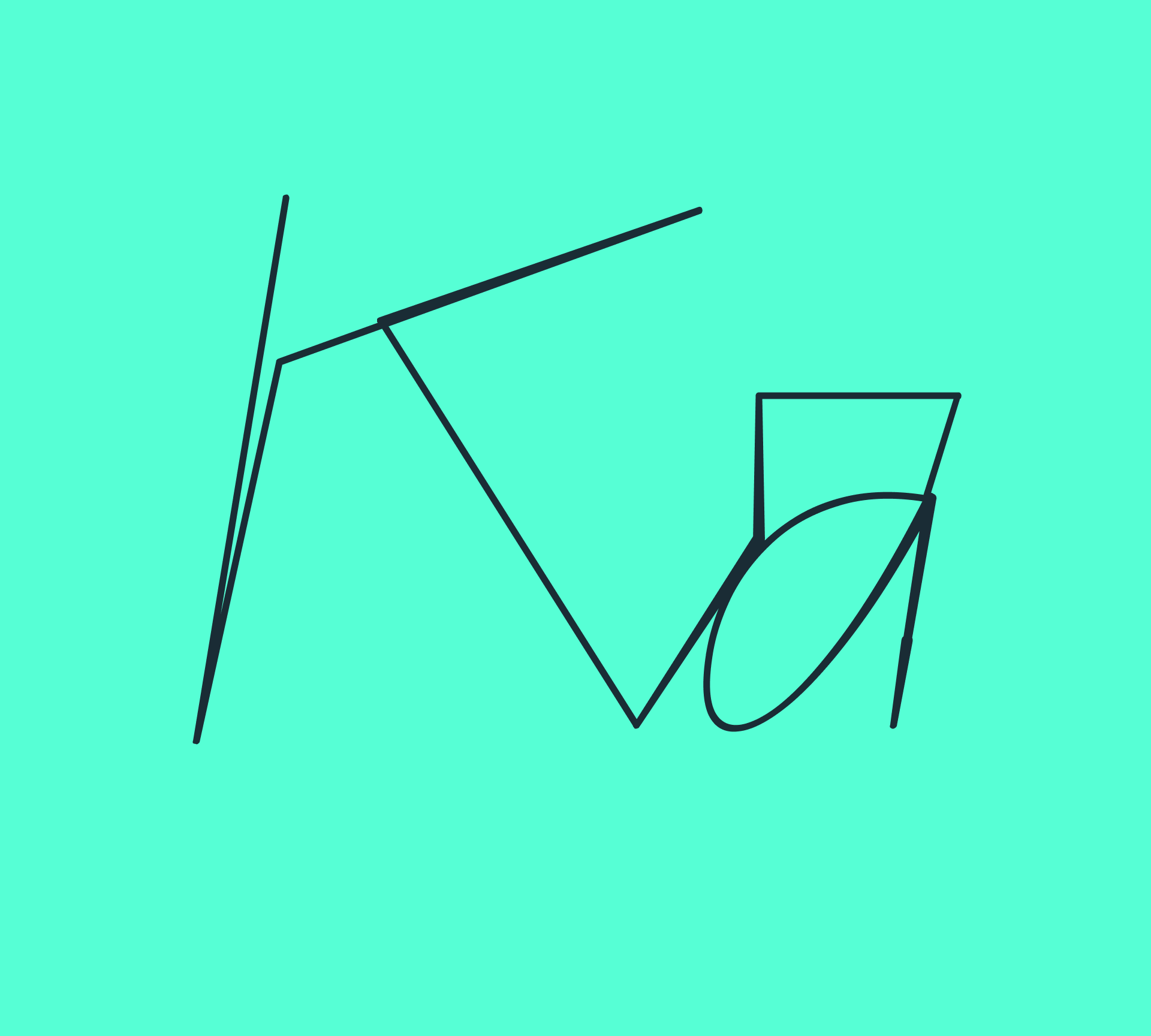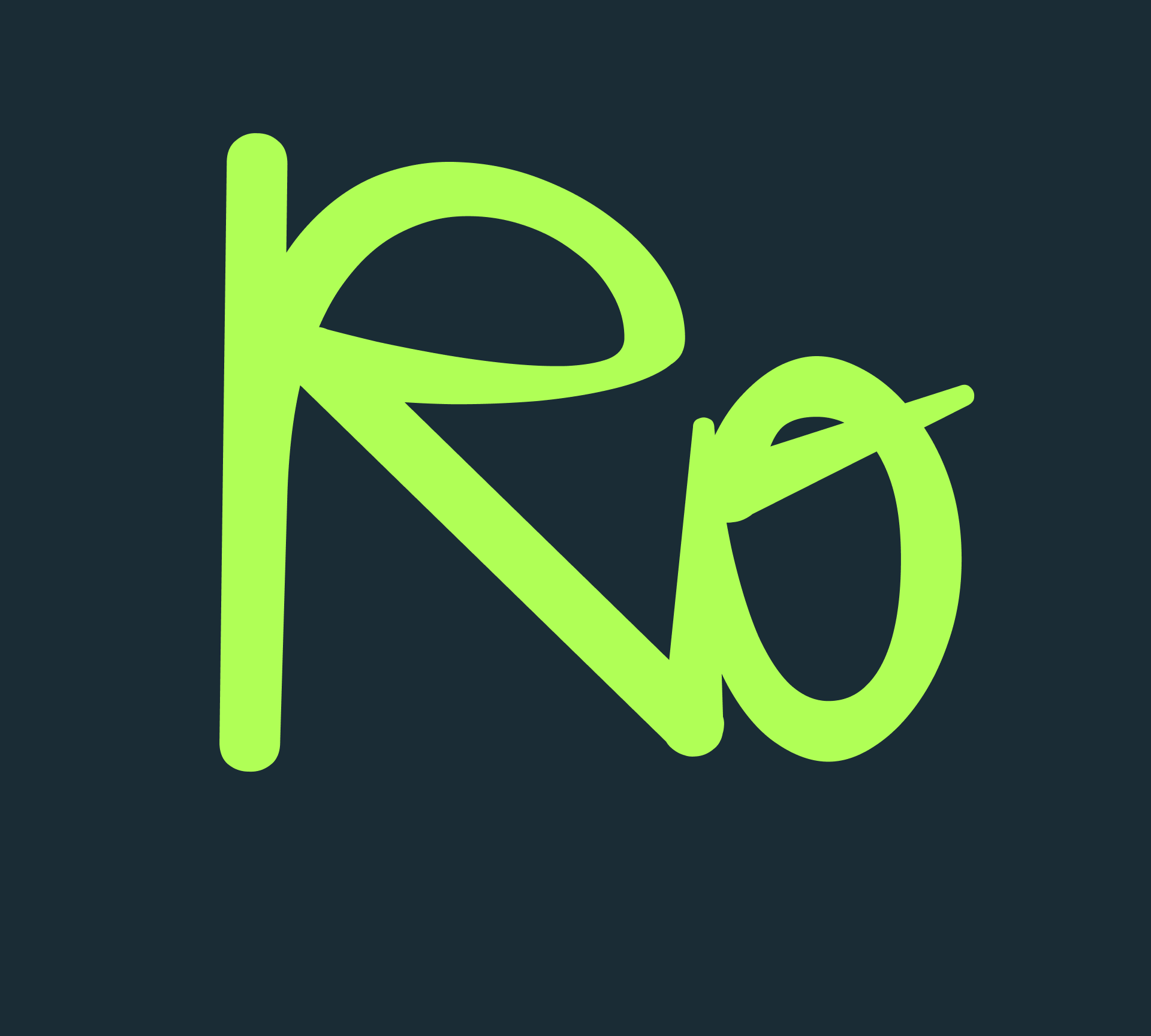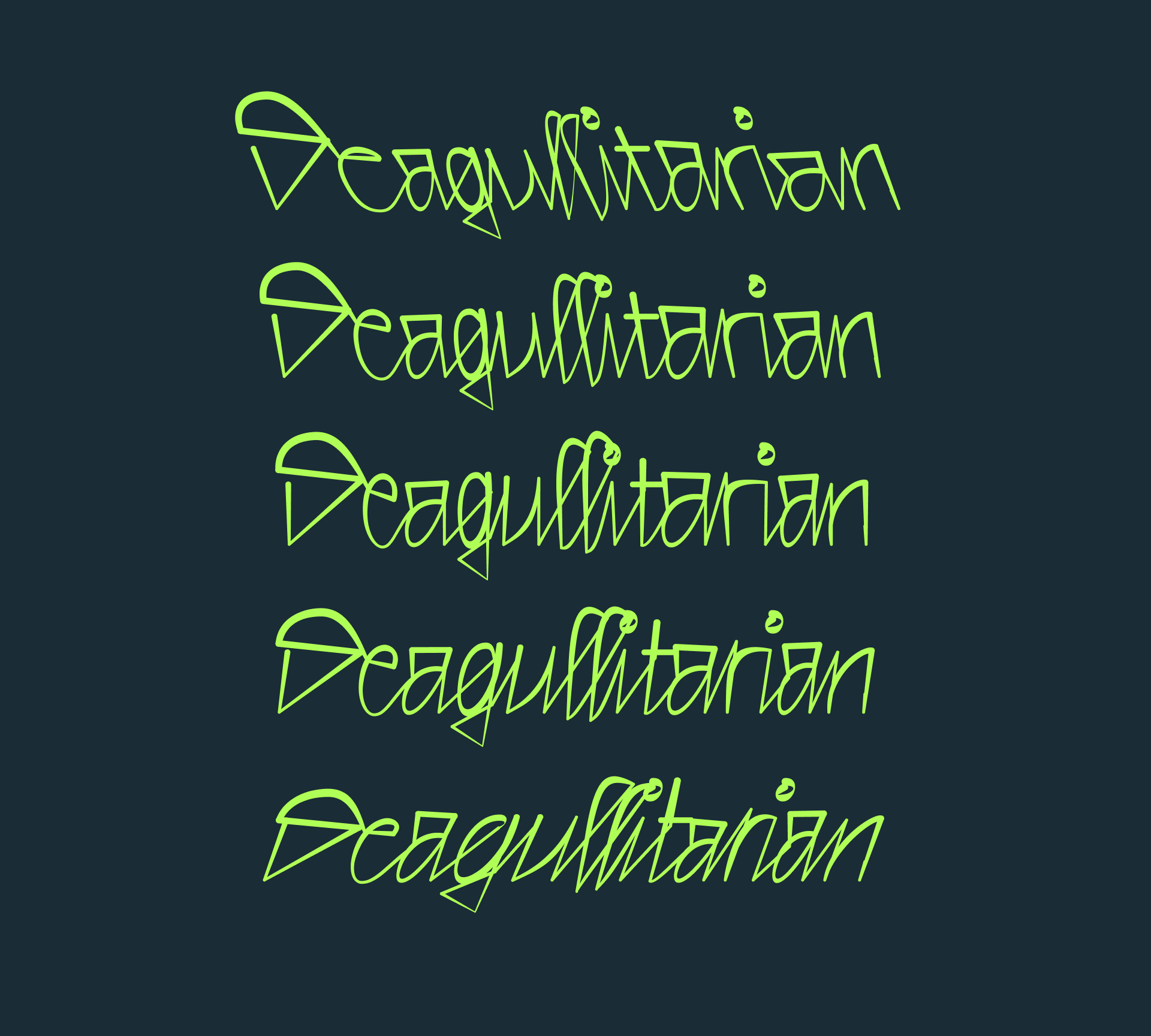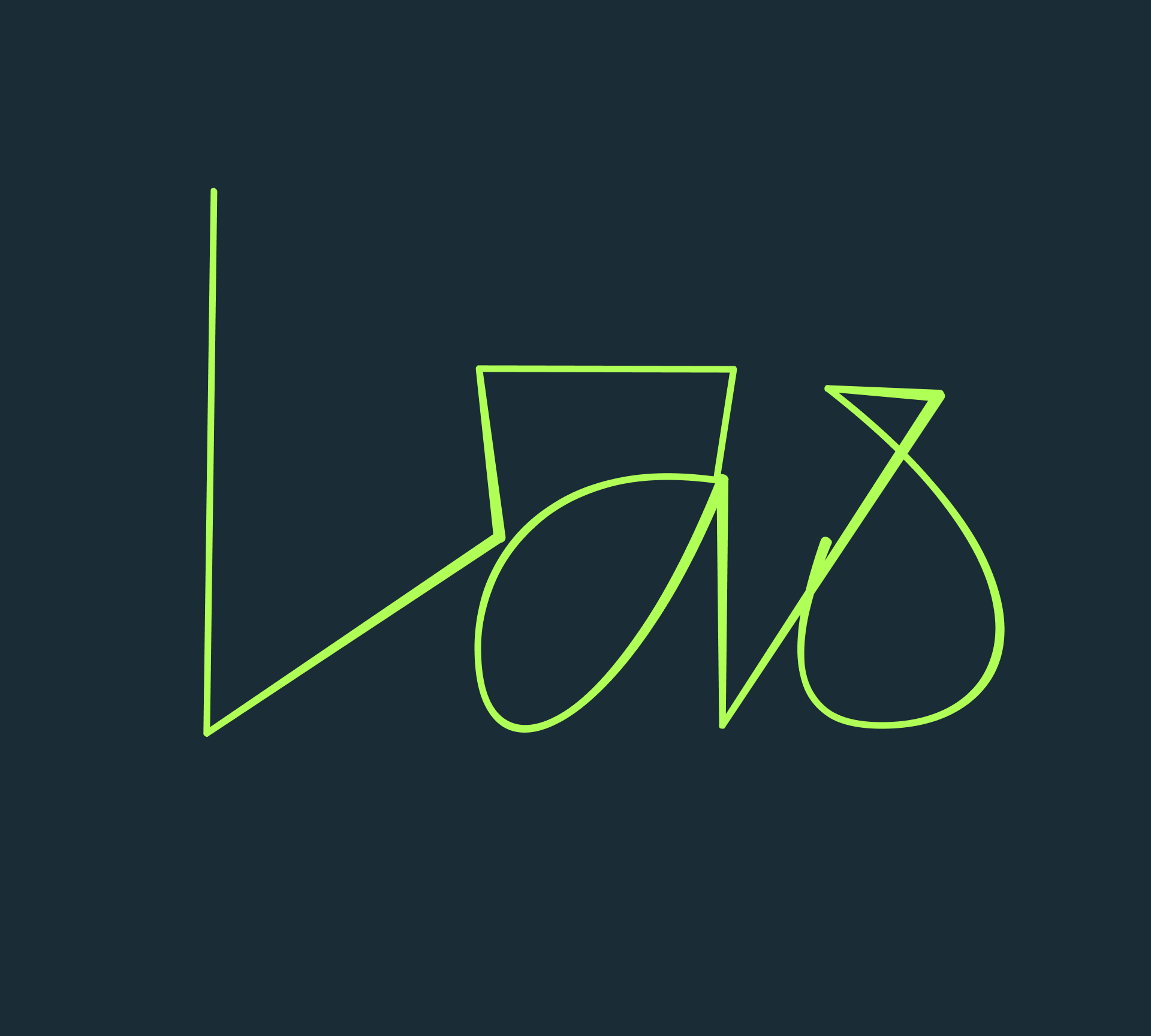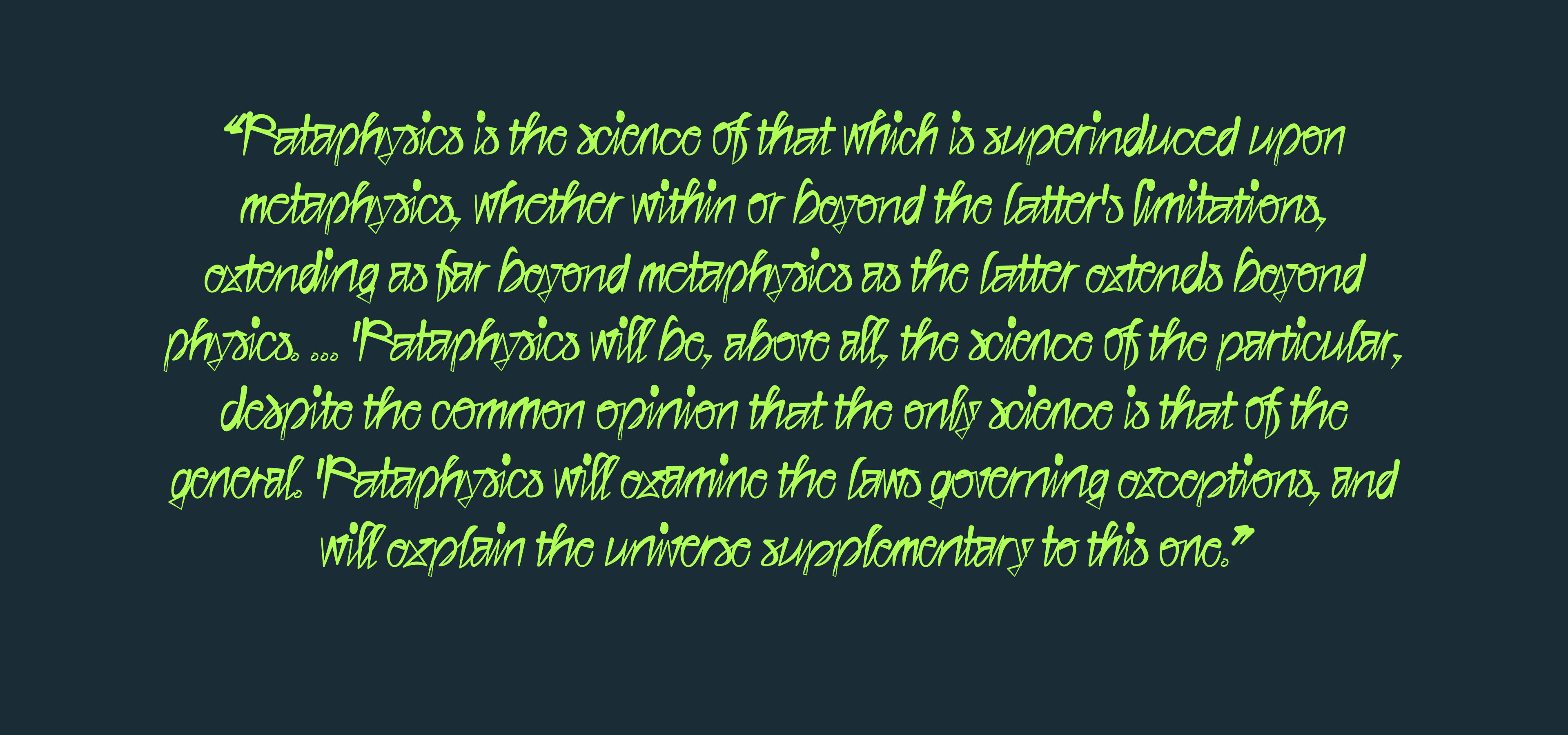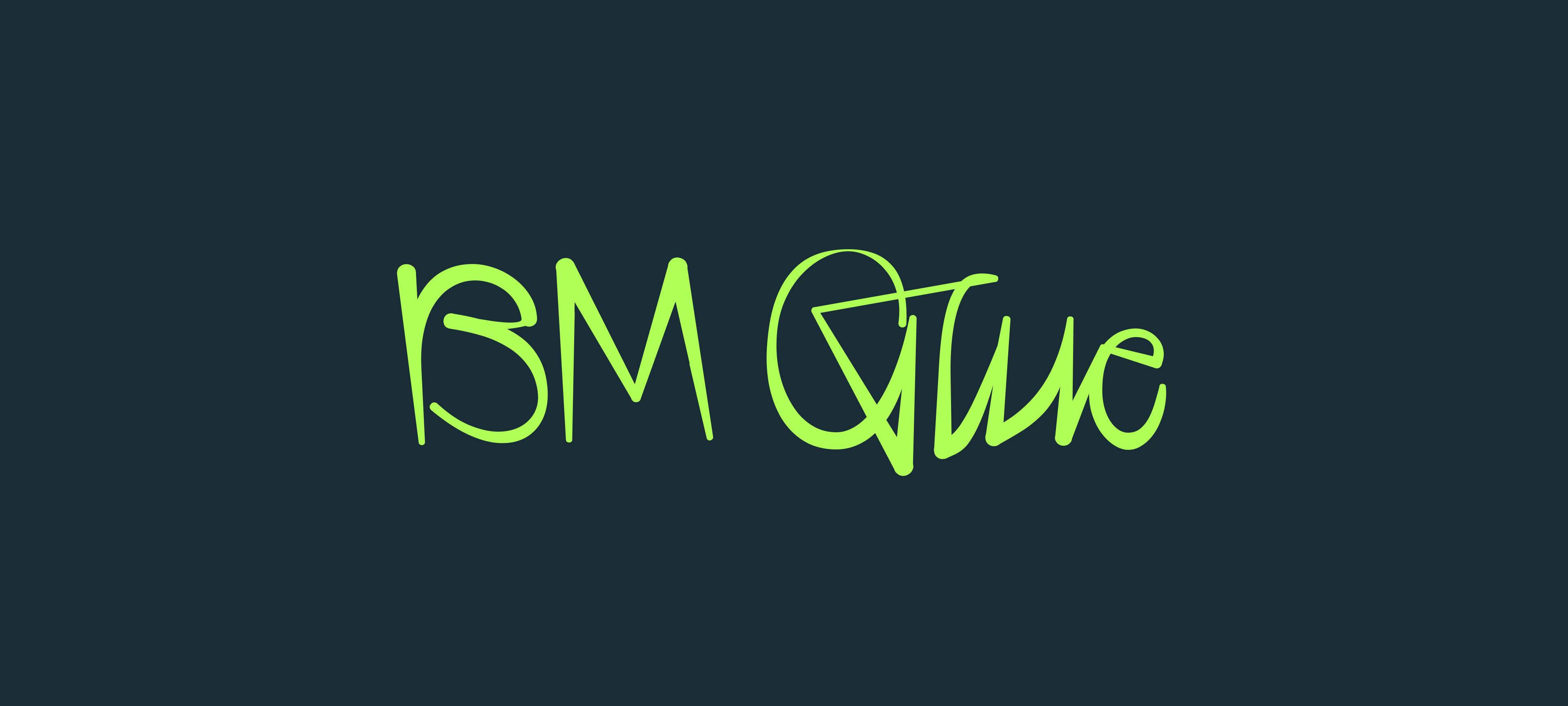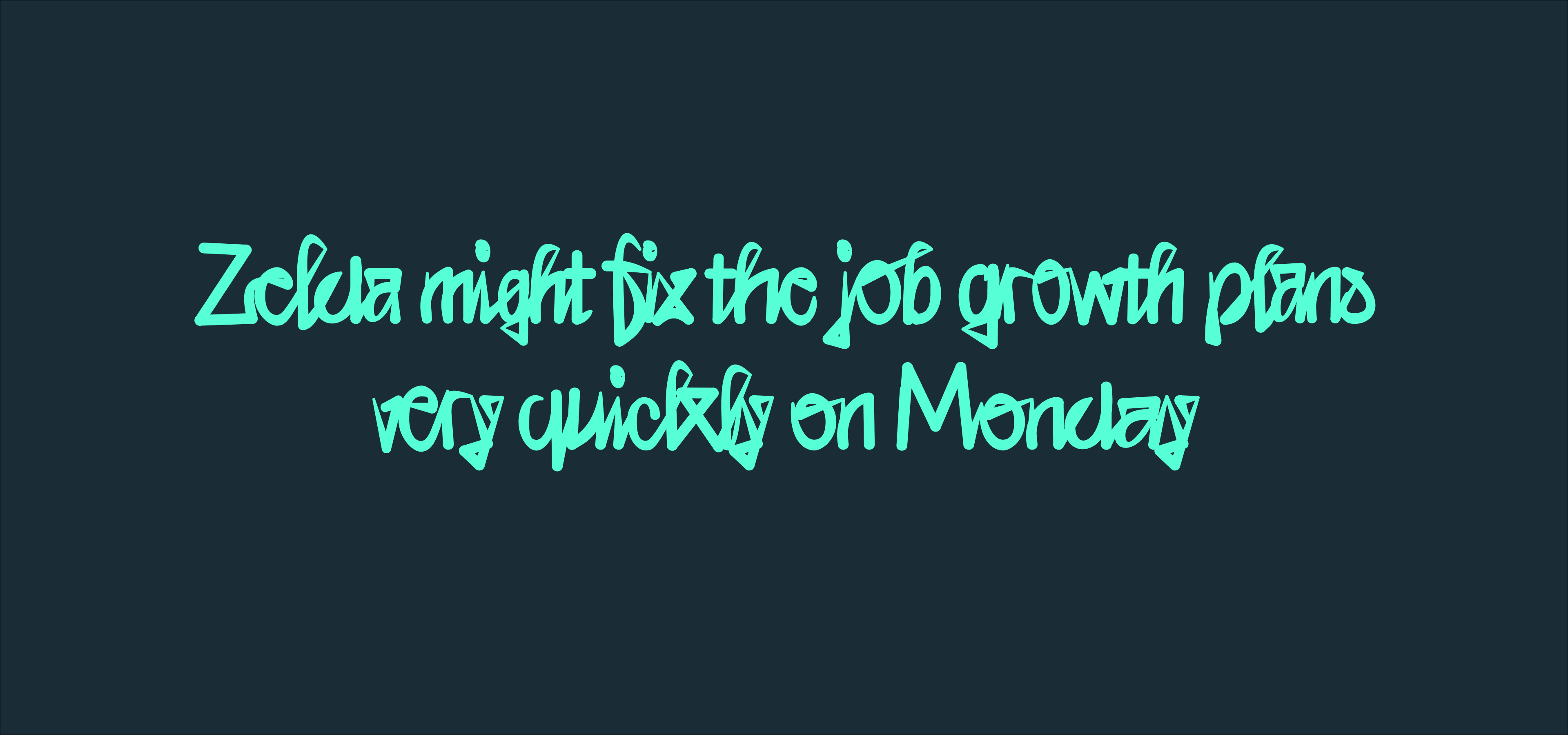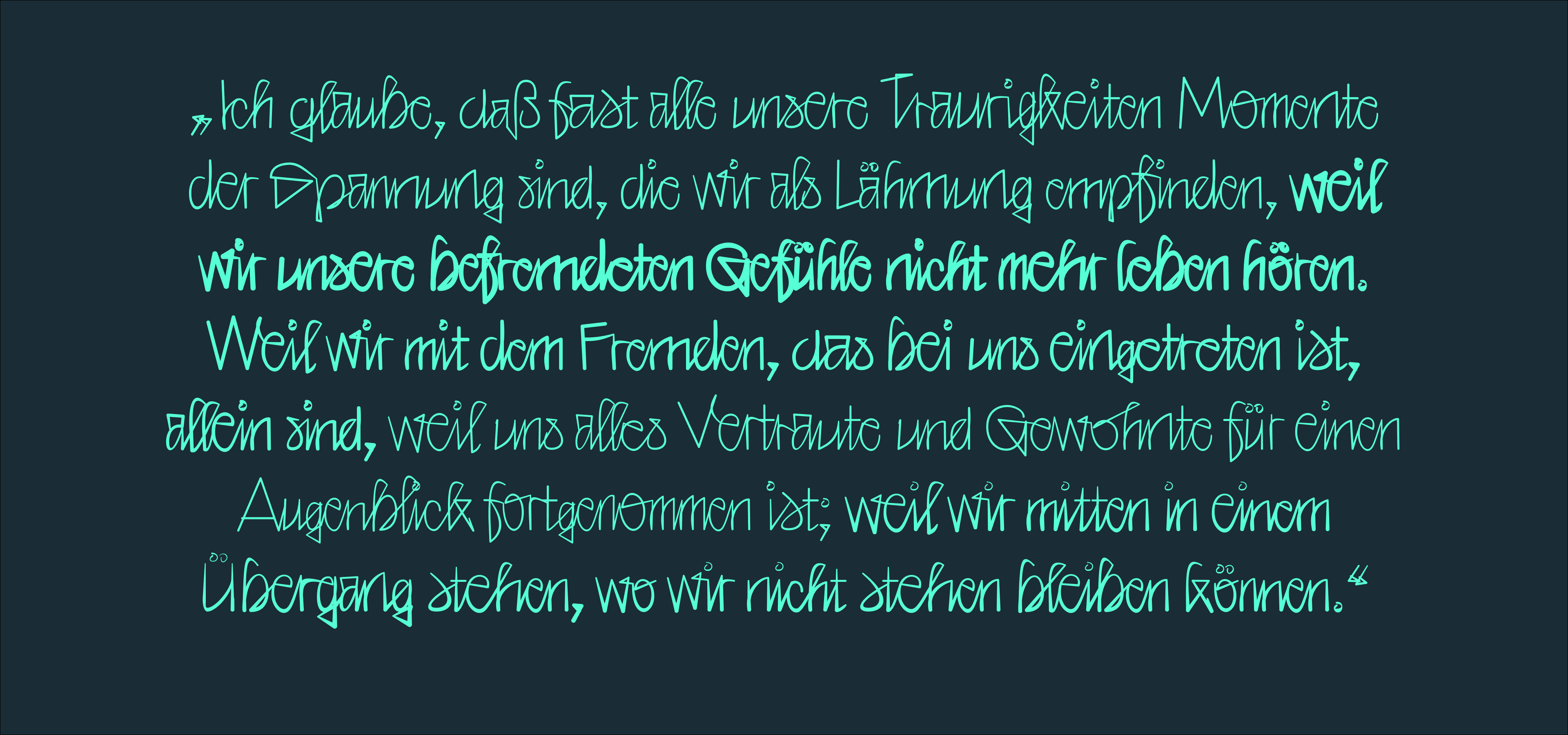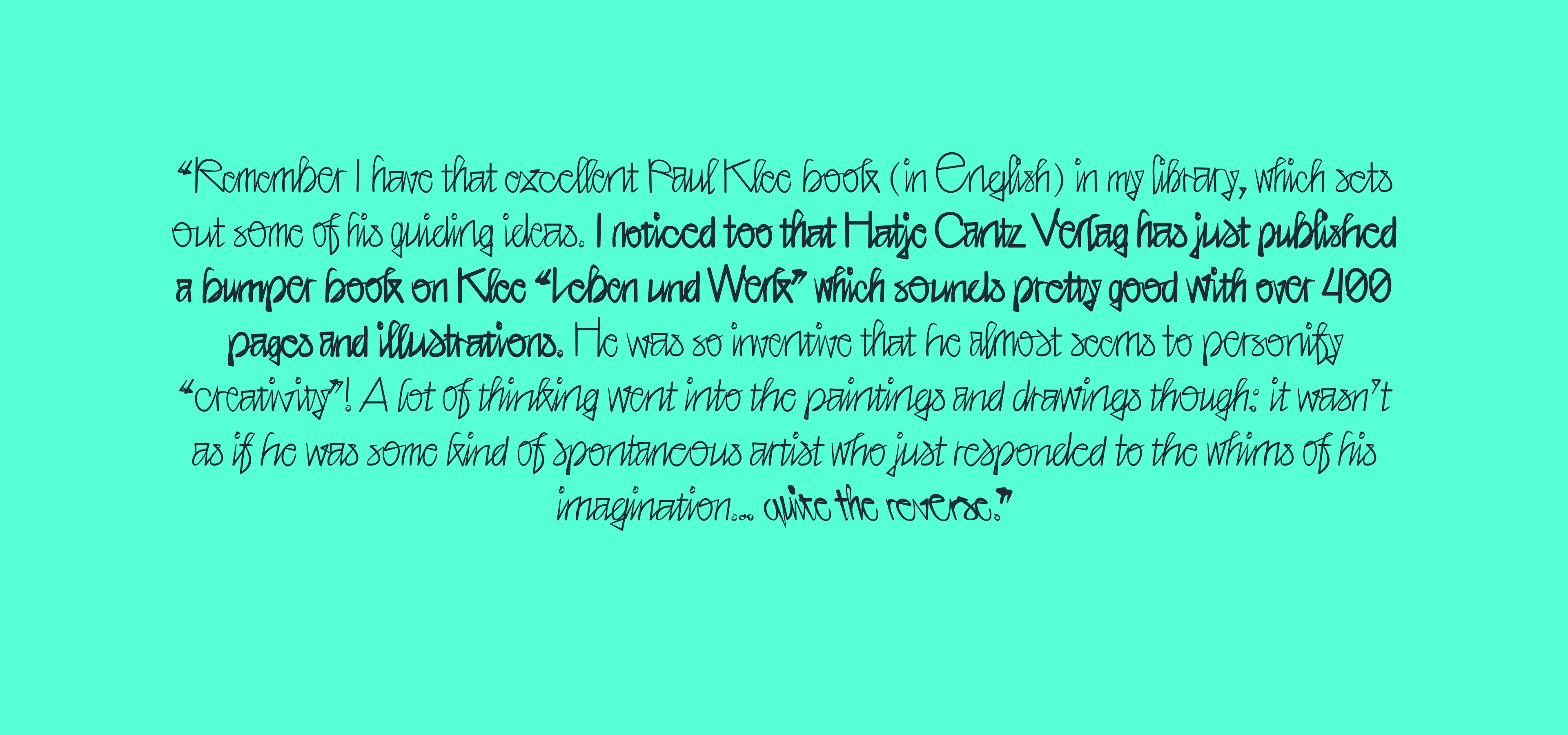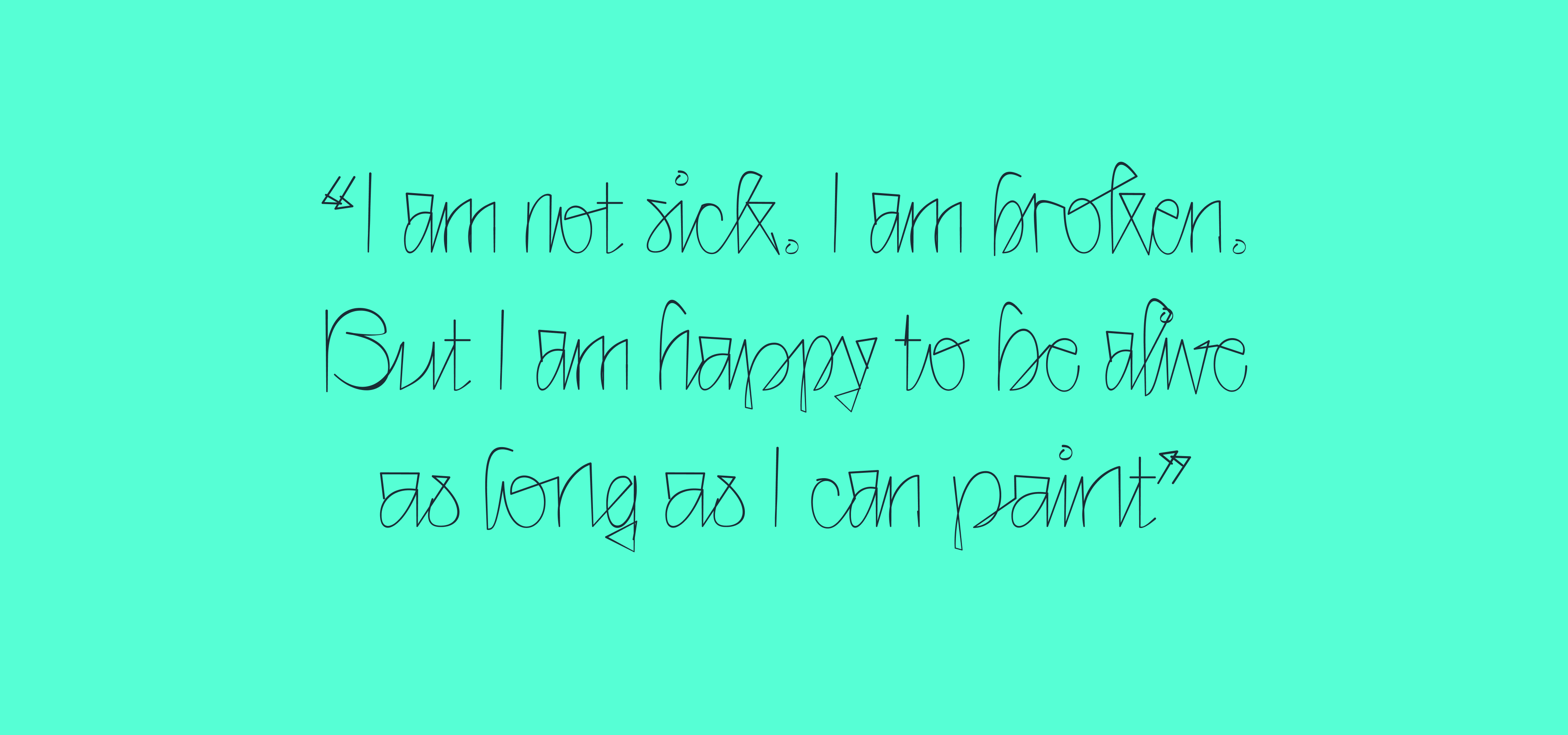
BM Glue is our contribution to representing the written hand in digital form. It is also an attempt to extend our understanding of its most important attribute: the appearance of “organicness”. To achieve this, BM Glue has been constructed via a custom pipeline. Its main feature: Each connecting letter has a bespoke connection to all other letters it can connect with (LC to LC, UC to LC) and is additionally distorted on multiple levels. This large glyphset helps create a uniquely organic feel. Three axes add further depth to the typeface by influencing its weight, weight distribution and slant.
| Family Structure | BM Glue (30 styles), BM Glue Var (30 Styles + Gradient Axis) |
| Style Axes | Weight, Gradient, Slant |
BM Glue comes with three axes: Next to the more conventional weight and slant axes, there is an additional axis called Gradient, which shifts the horizontal position of the weight up or down. This aesthetic, inspired by Graffiti, namely tagging with a fat cap, transforms BM Glue from a pen-written look to a marker or spraycan appearance.